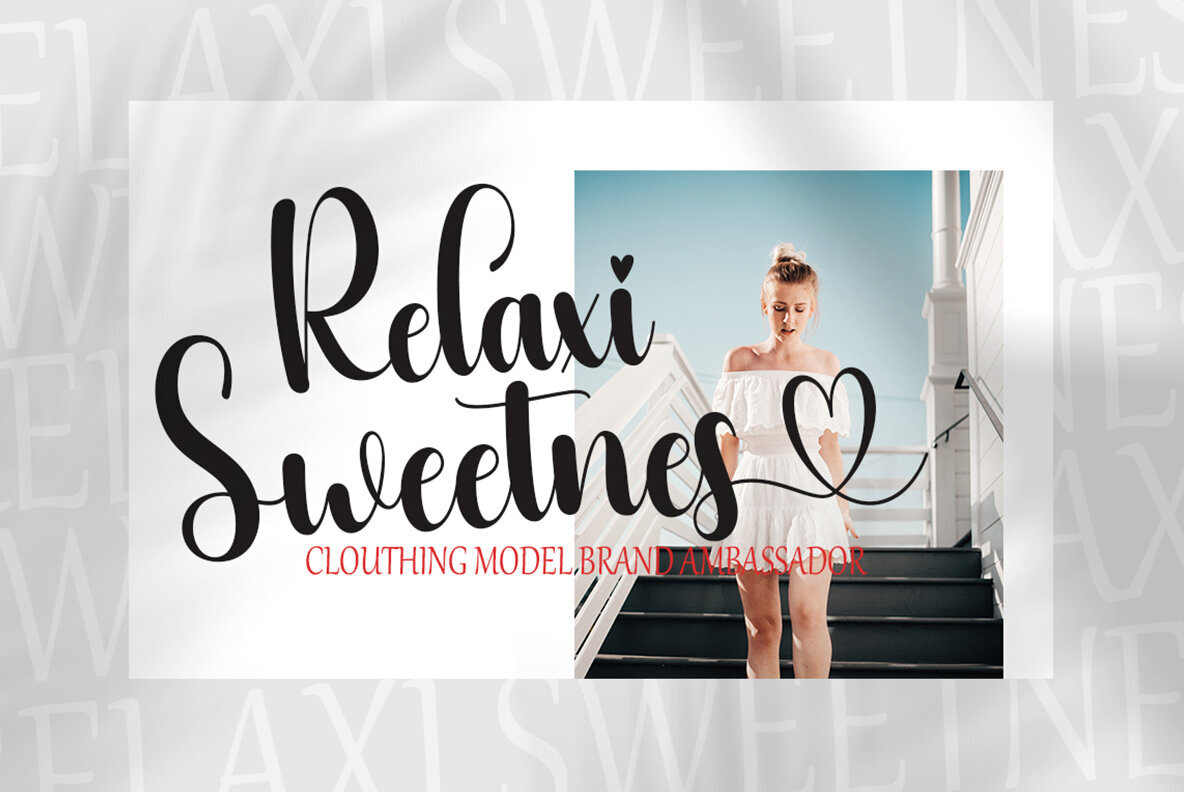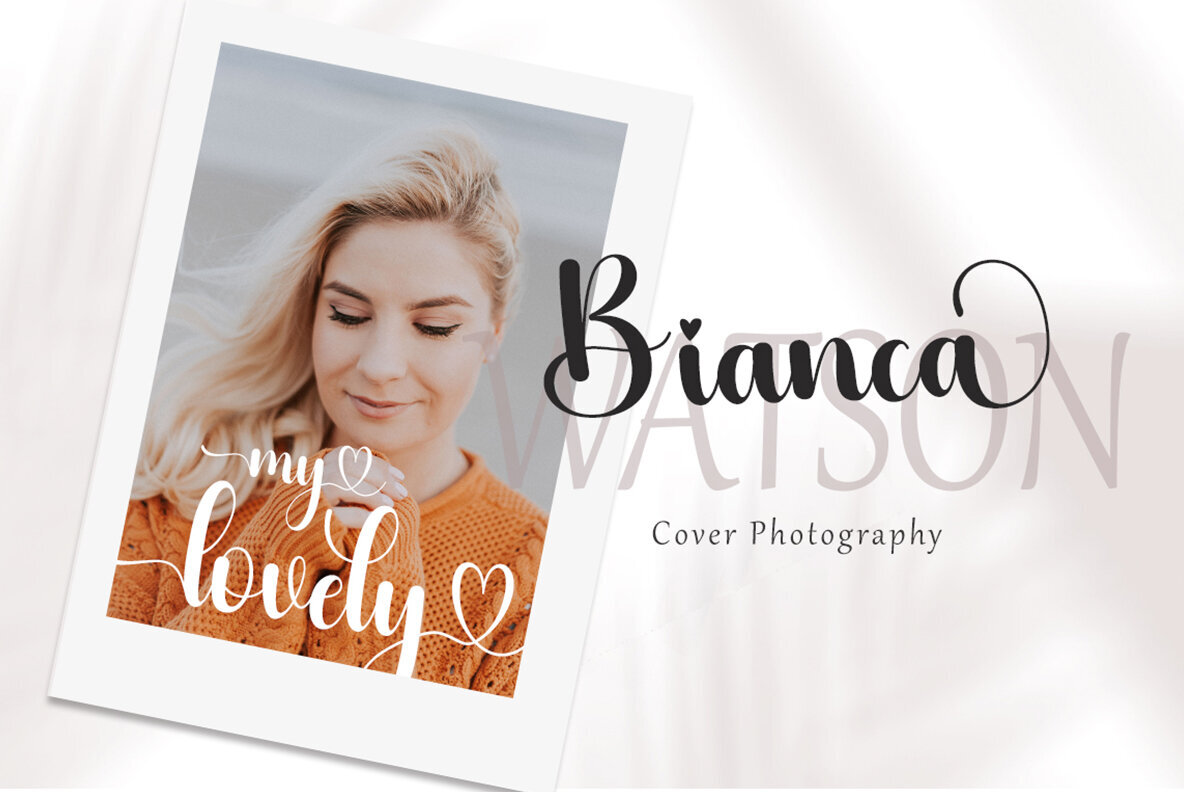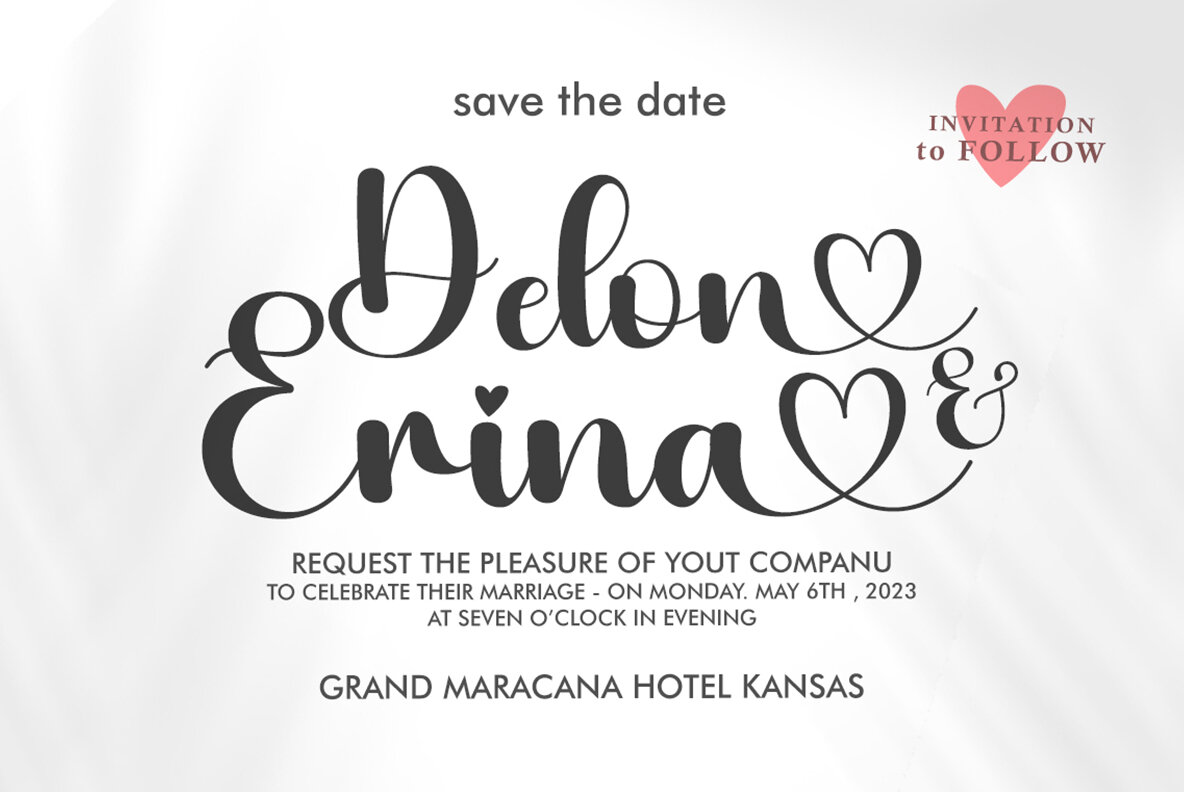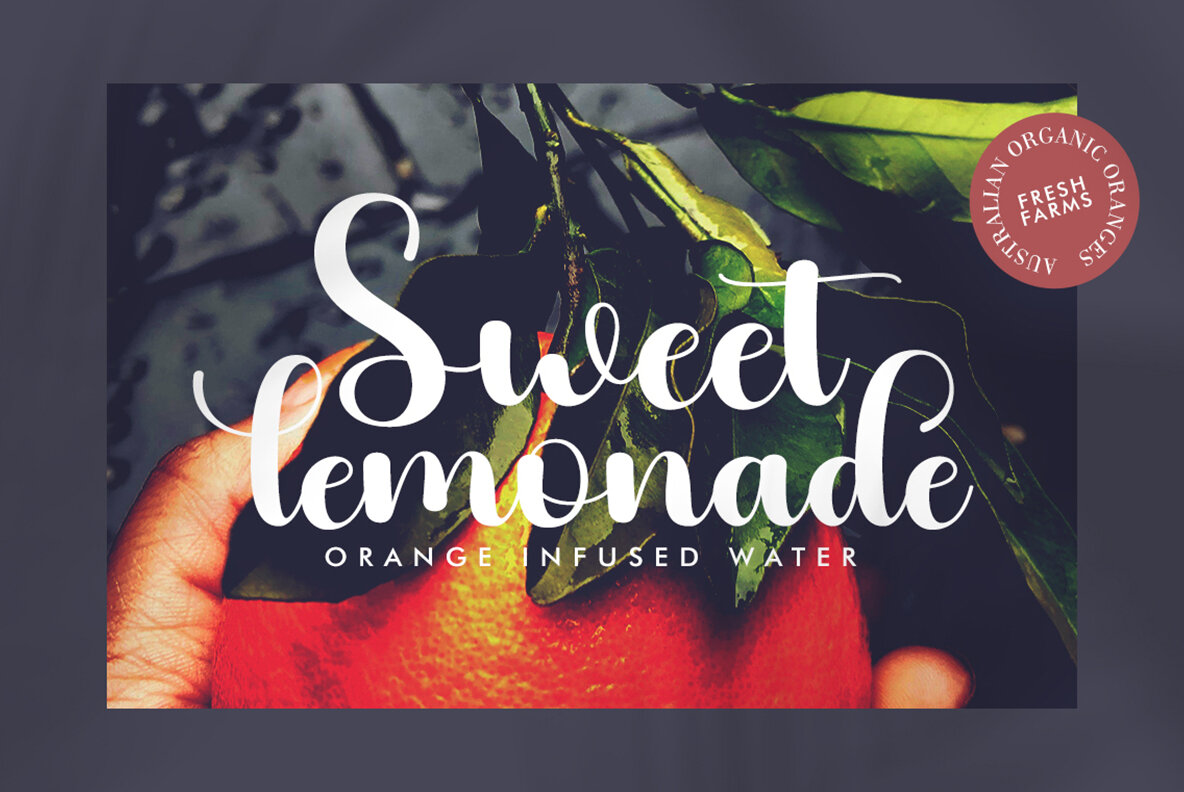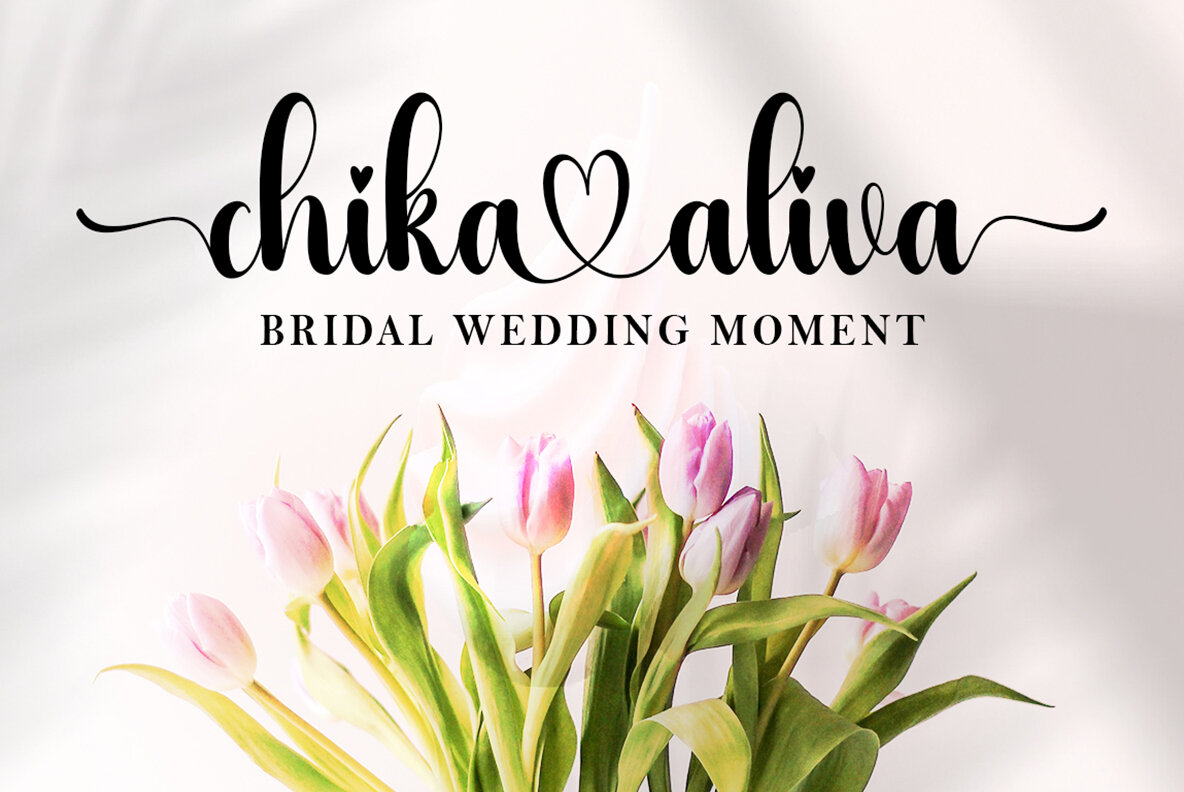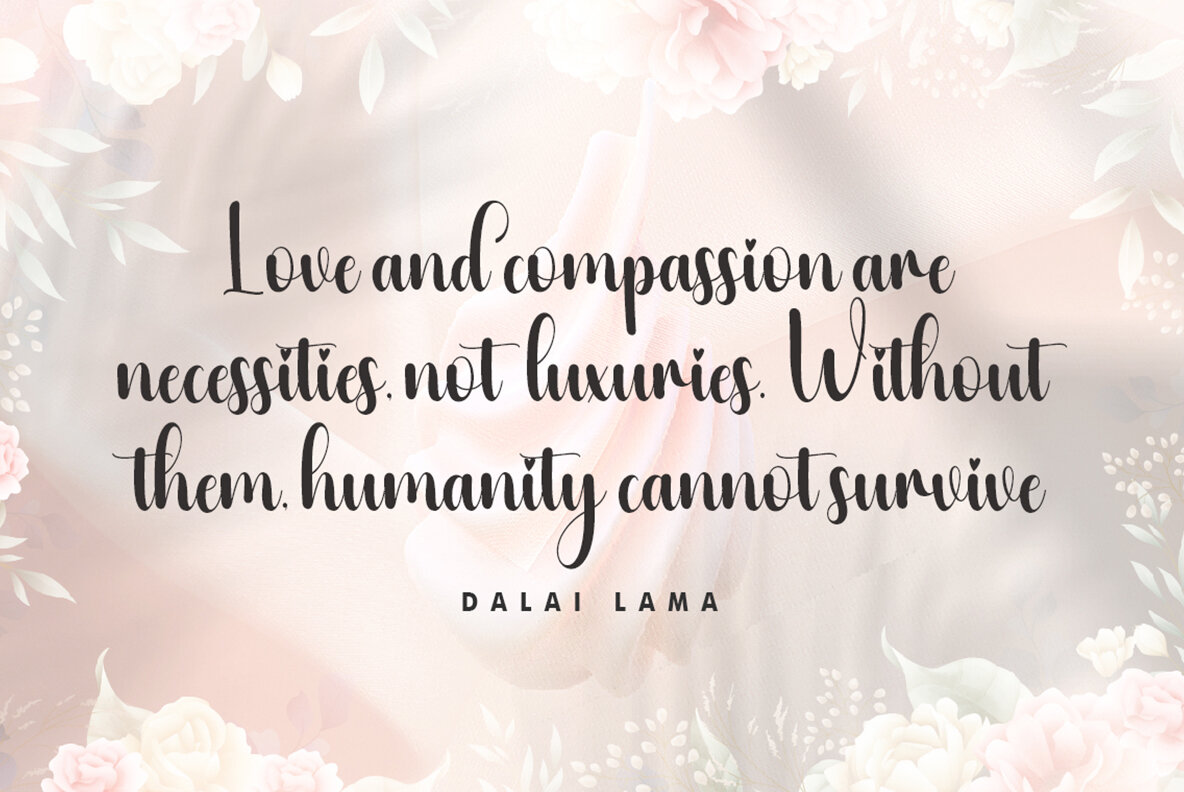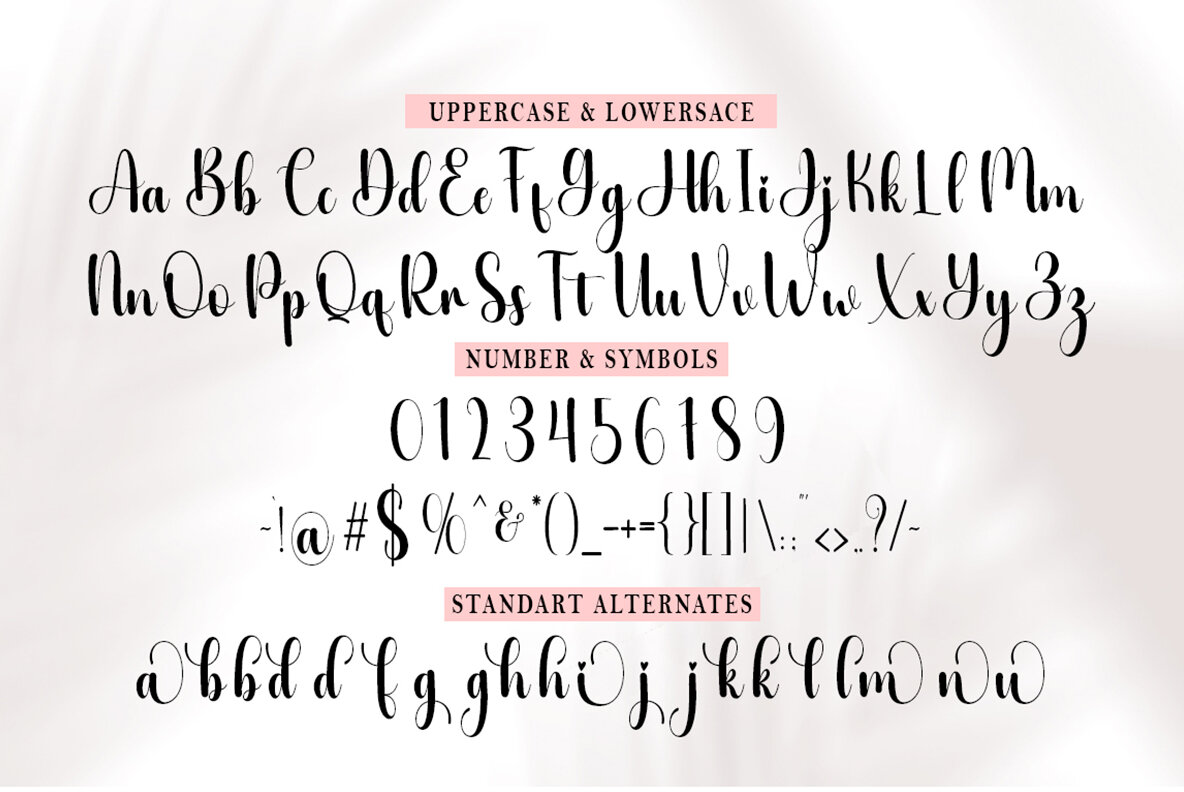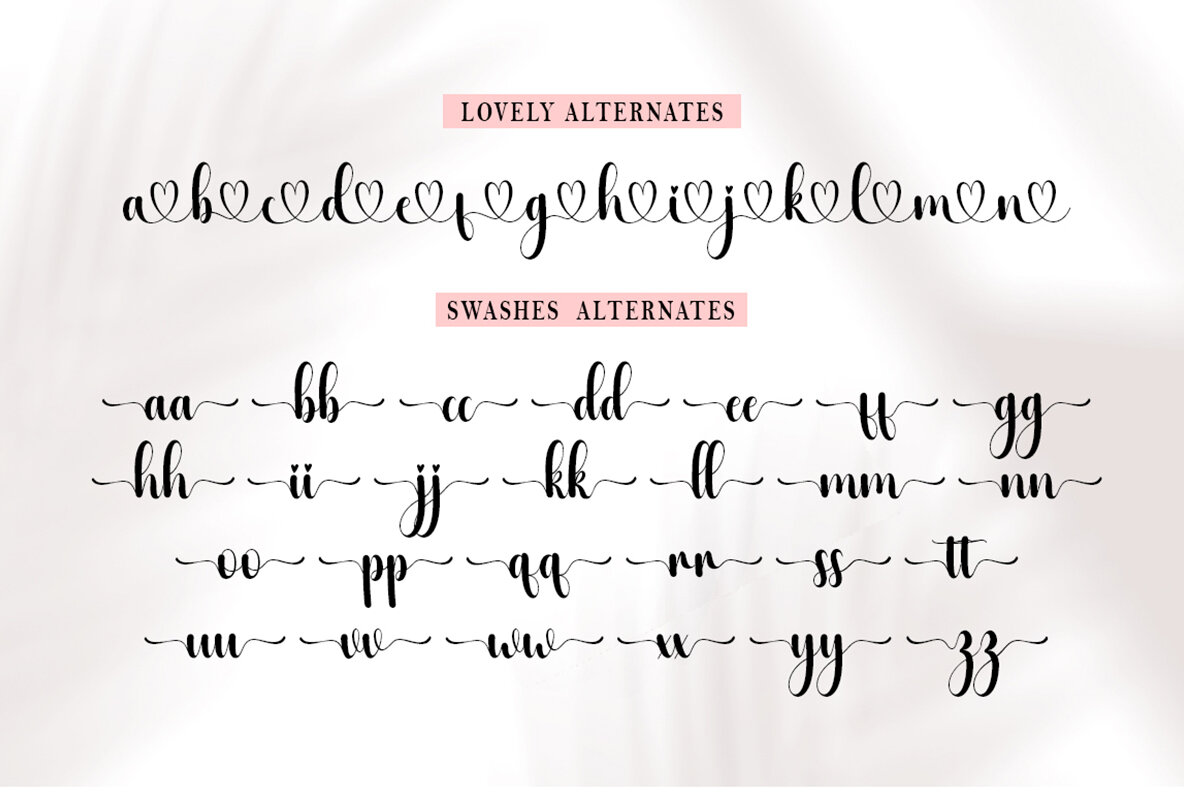
Sweet Monica Font
Sweet Monica is an elegant script font that captures the essence of beautiful calligraphy. Thick, balanced, and varied, this font is designed for luxury and beauty, making it an ideal choice for high-end branding and design projects. This script can be used effectively in a variety of design niches. It's perfect for creating logotypes, establishing strong brand identities, crafting wedding invitations, designing romantic cards, labeling alcohol products, packaging designs, and more. Its ability to convey elegance and sophistication makes it incredibly versatile. The Style Alternative feature works seamlessly with the Standard Binding option in the OpenType panel, which is available in popular design software like Adobe Photoshop and Illustrator. This allows for simple but effective combinations within your designs. Enjoy the beauty and functionality of Sweet Monica in your upcoming projects!Sweet Monica: An Elegant Script for Luxurious Designs
Styling Options